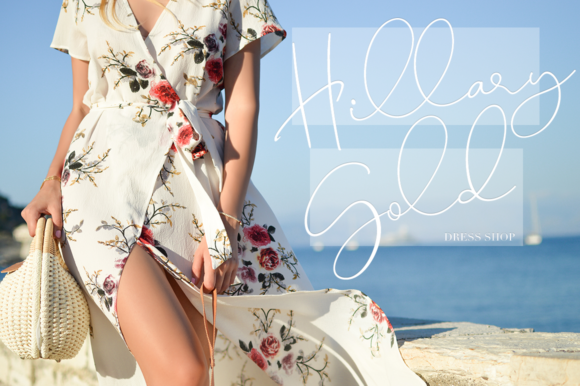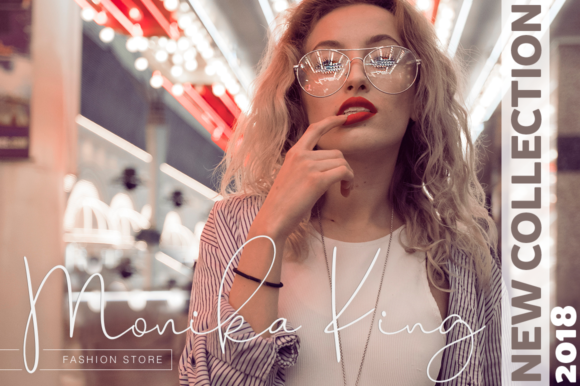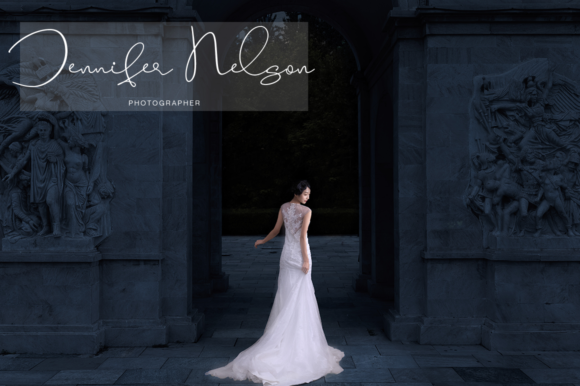
Beverly Hills Font
Beverly Hills is a fresh handmade script.Because of it’s up to date look, it’s perfect for modern-age branding, because of it’s playful look, it’s perfect for wedding invites, personal blogs and many different types of personal projects.